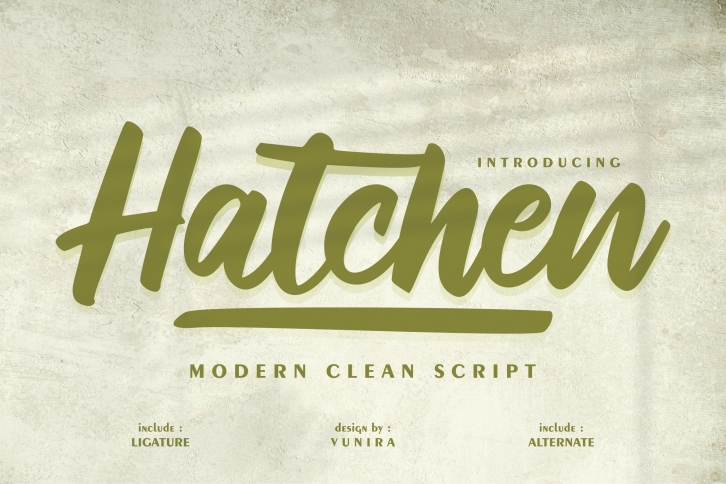
Hatchen is a gorgeous font that was realeased on January 1, 2021. The font can be used in many style contexts and design environments. Perfect for invitations, magazines, websites, logos, and more! It was designed by Vunira and the file size is 4.10 MB. Thanks for checking out this font!